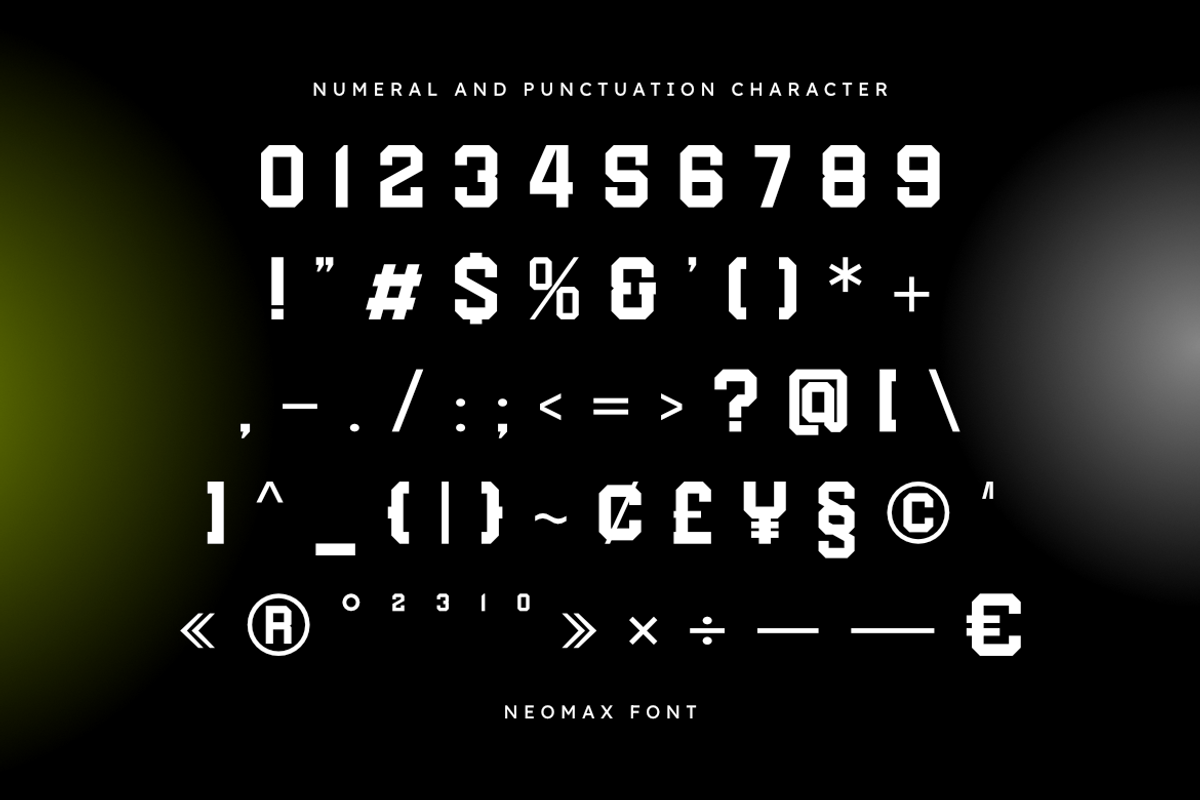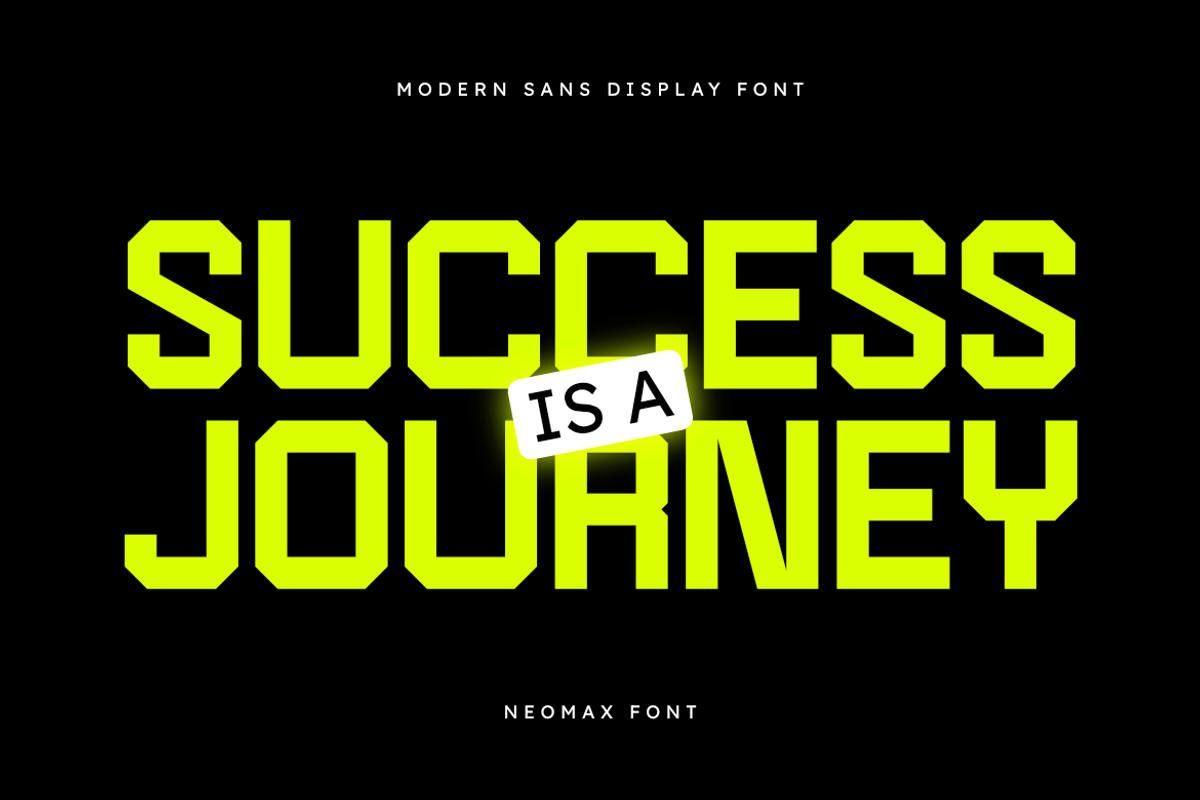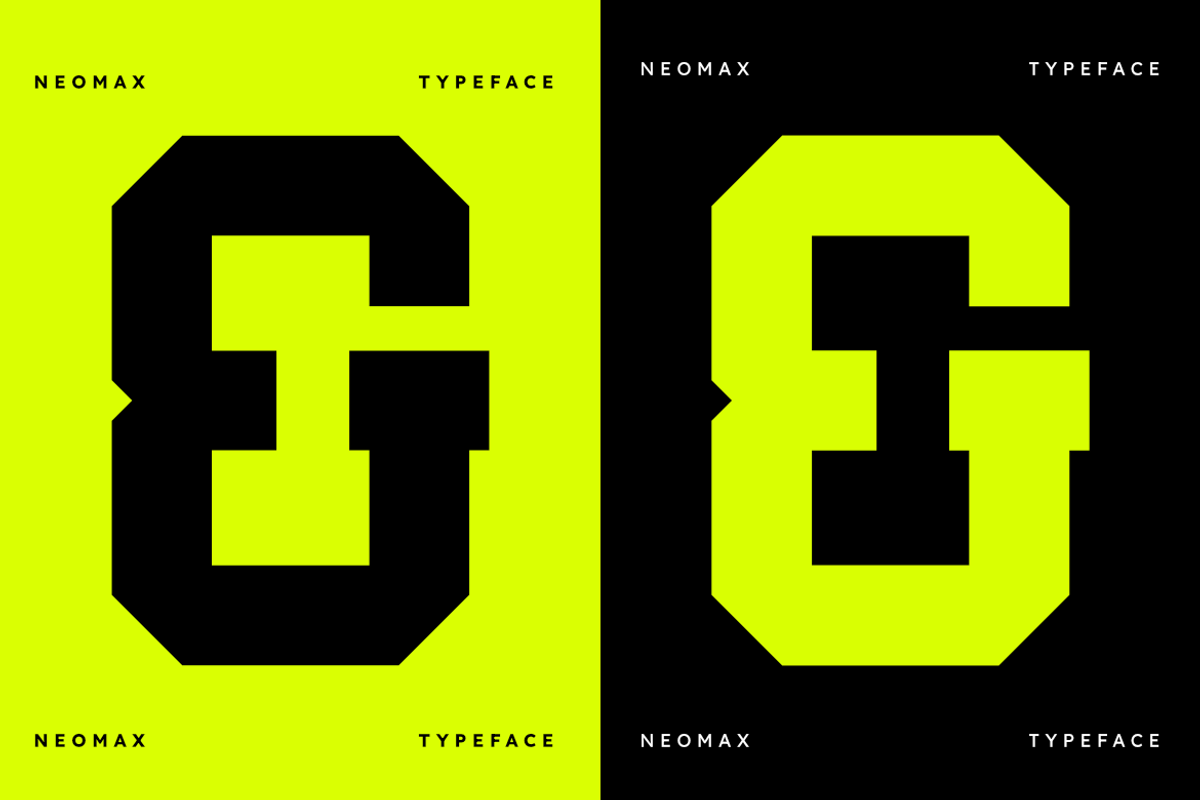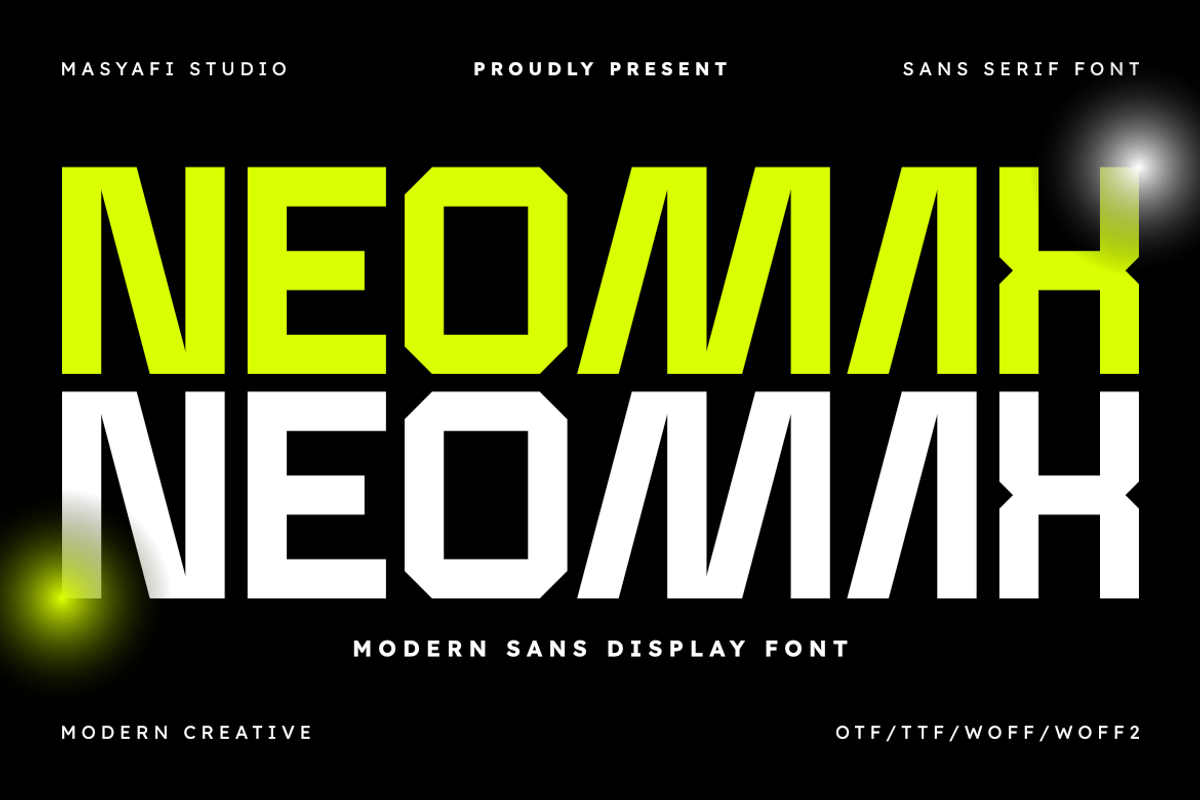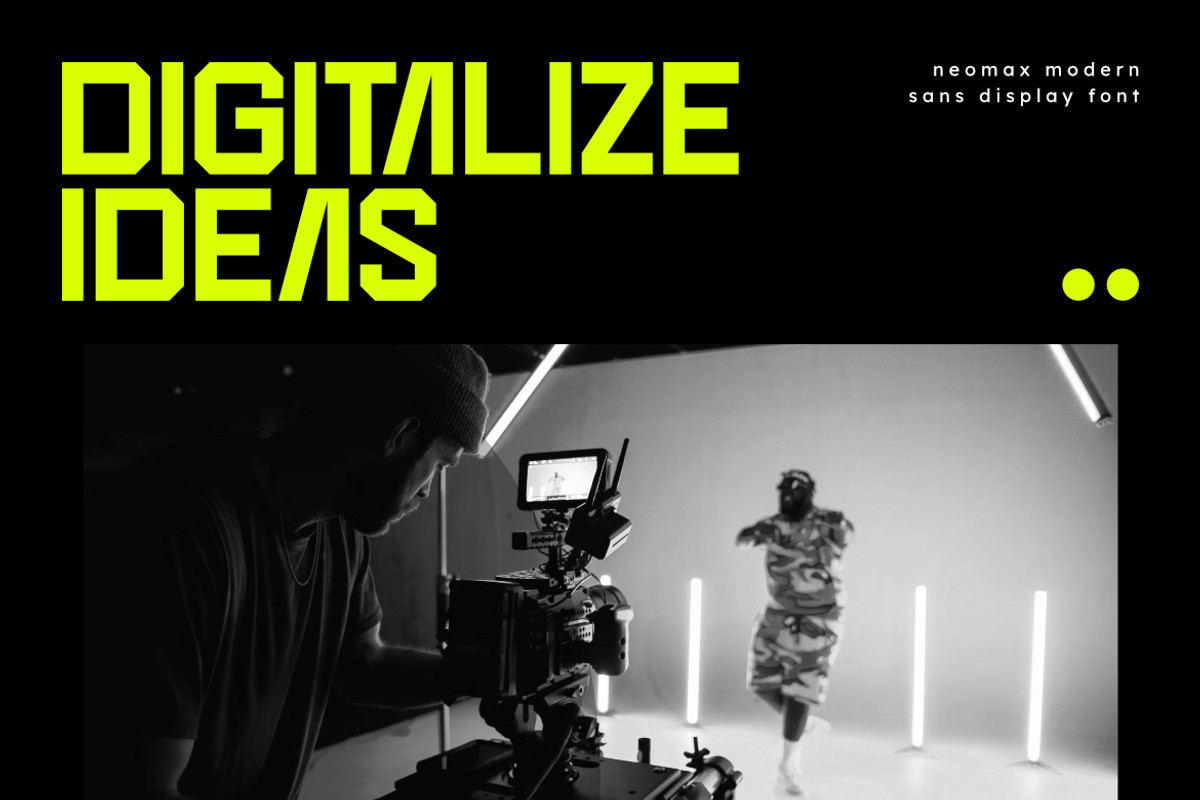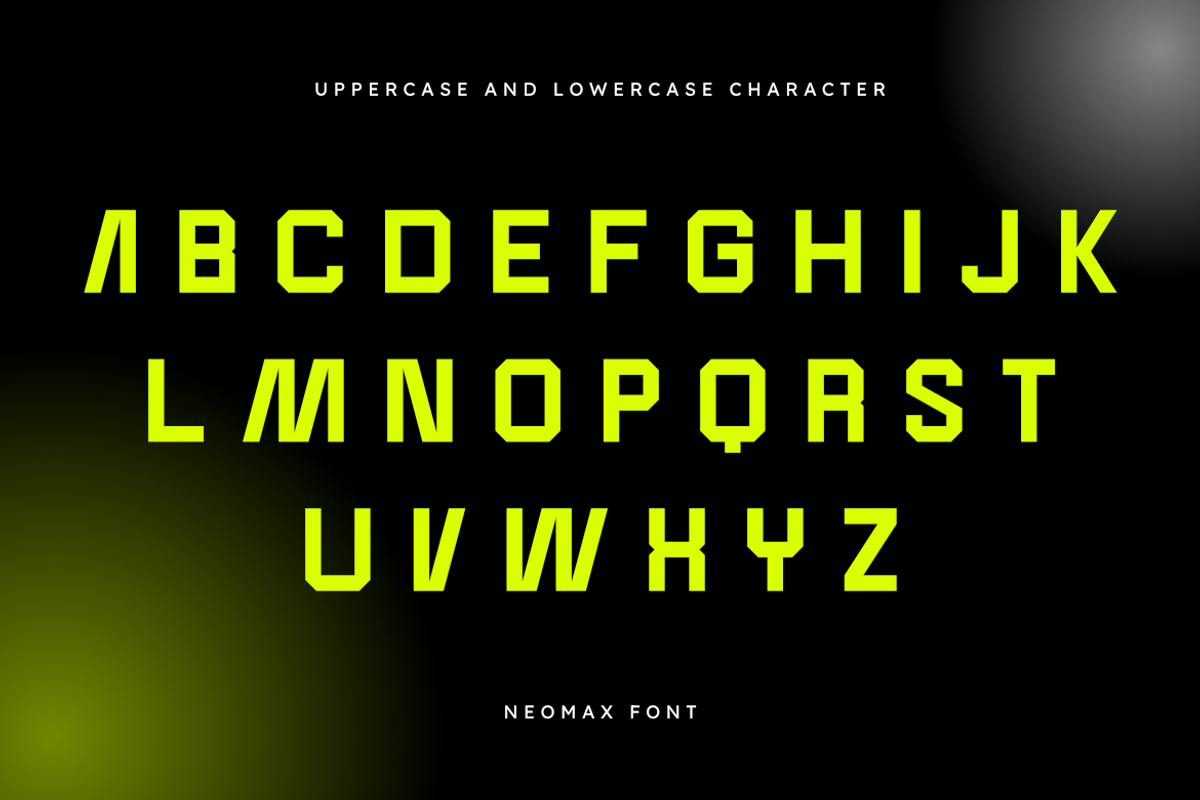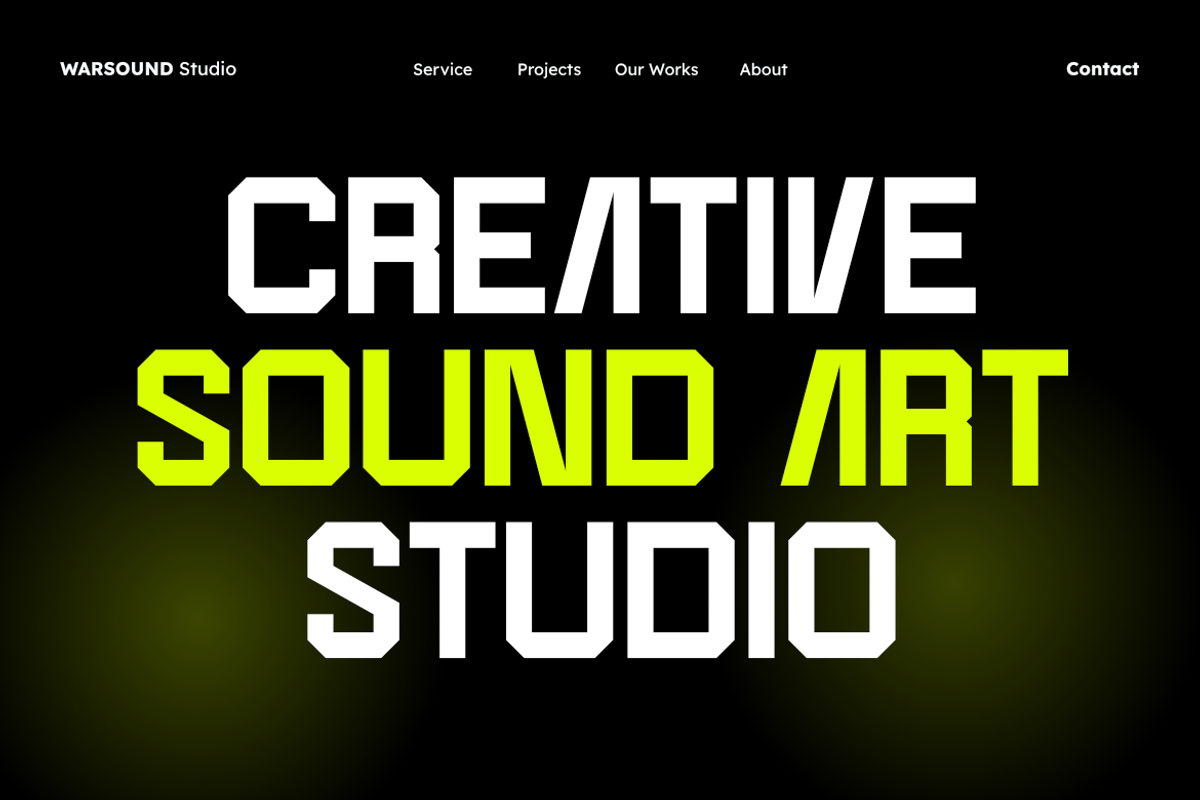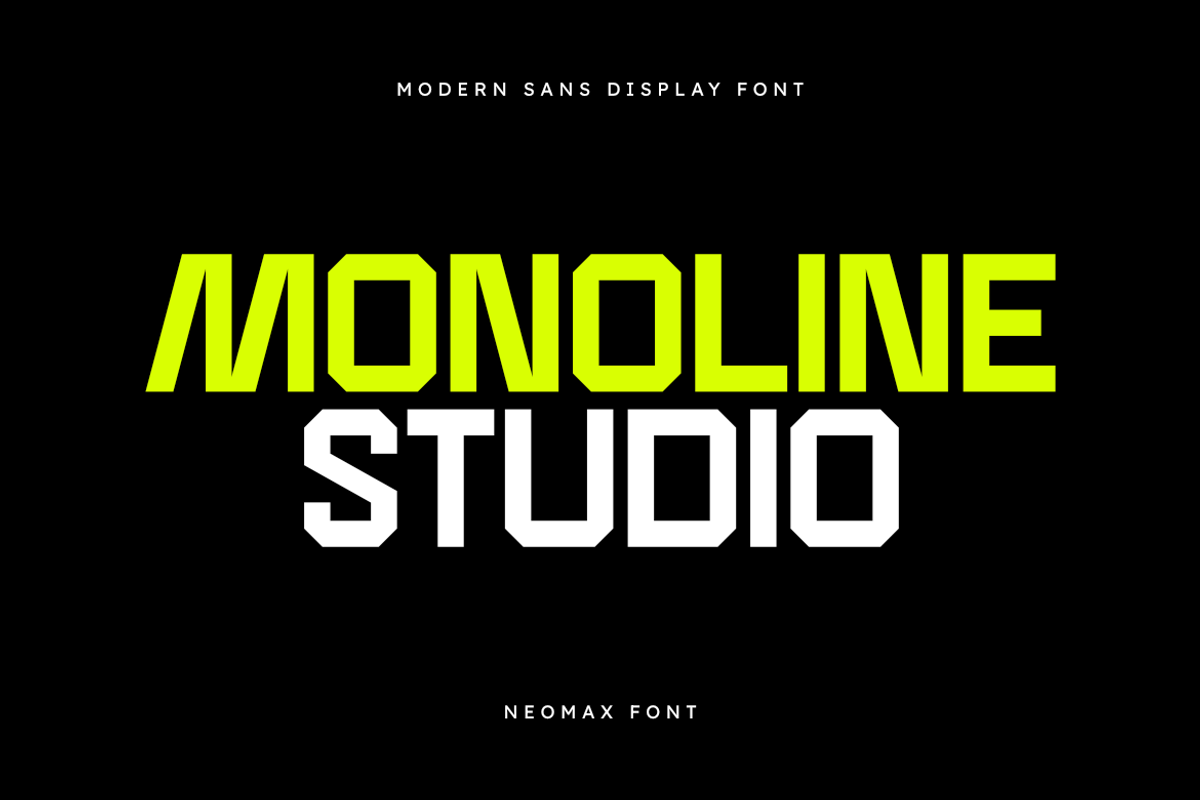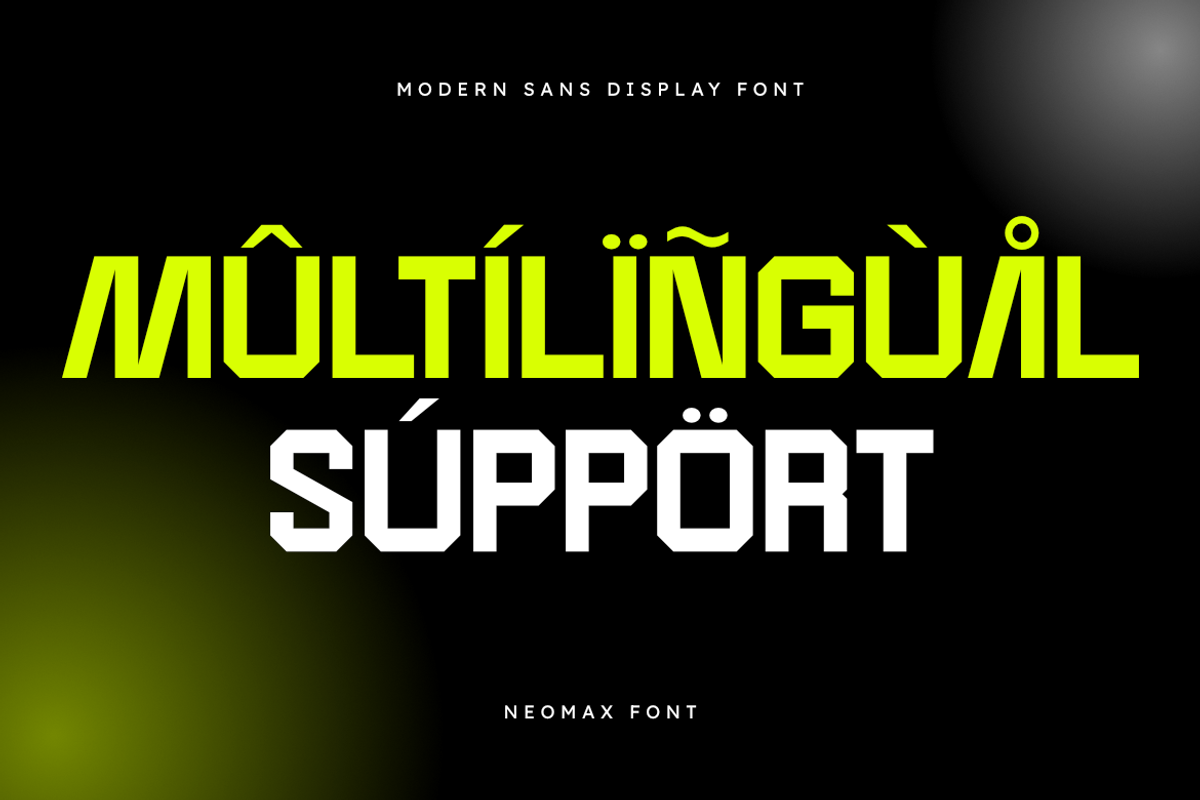
Neomax - Modern Geometric Sans Serif
NEOMAX is a Bold, Geometric, and Ultra-Modern Display Sans Serif font. With its strong presence, sharp angles, and powerful, condensed letterforms, NEOMAX is designed to capture attention and deliver a high-impact, futuristic message. Its striking and dynamic structure makes it the perfect choice for projects demanding a bold, contemporary, and cutting-edge aesthetic.
Perfect for :
- Digital Media and Gaming
- Poster and Movie Titles
- High-Tech Branding
- Music Album Covers
- Editorial Design with an Edge